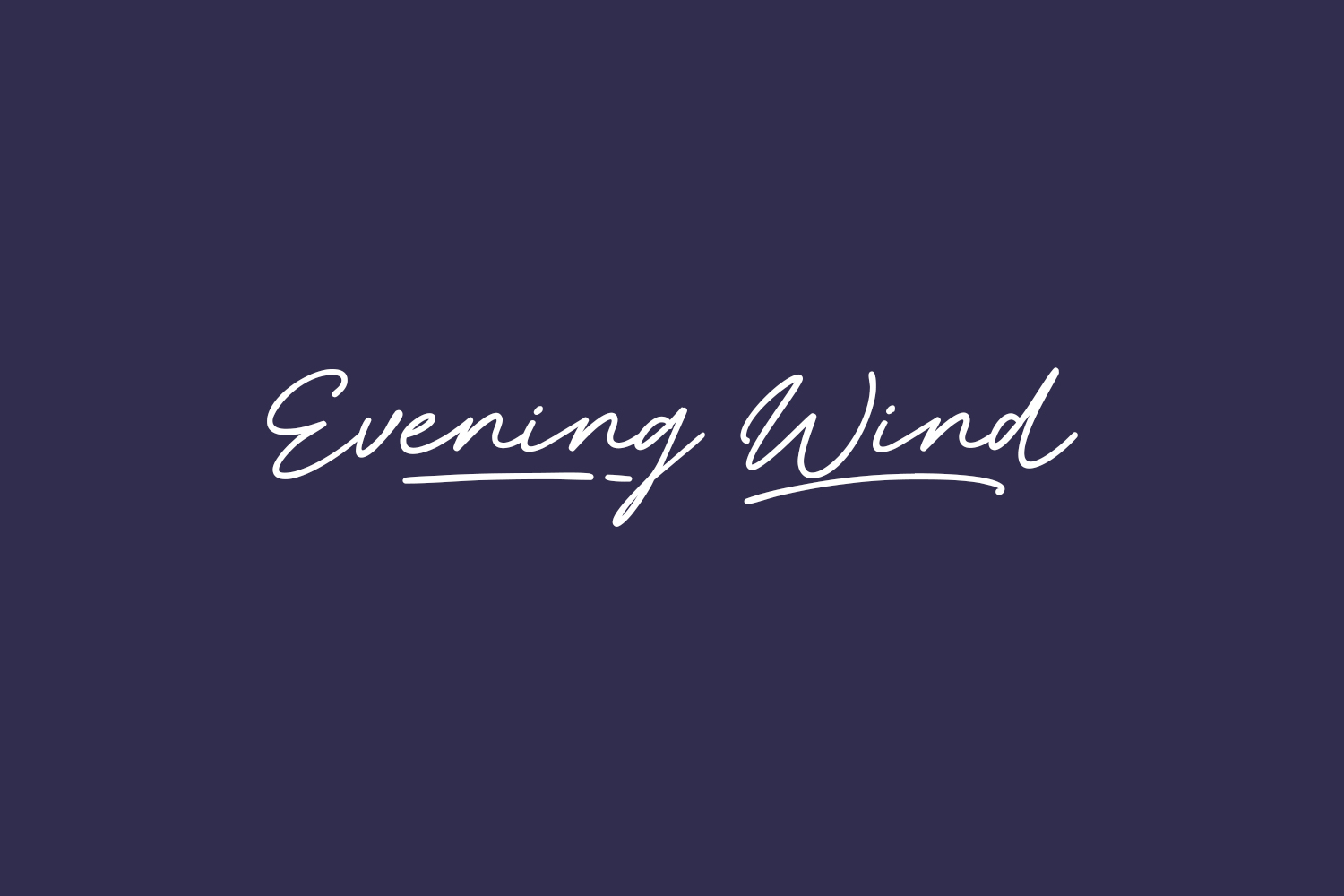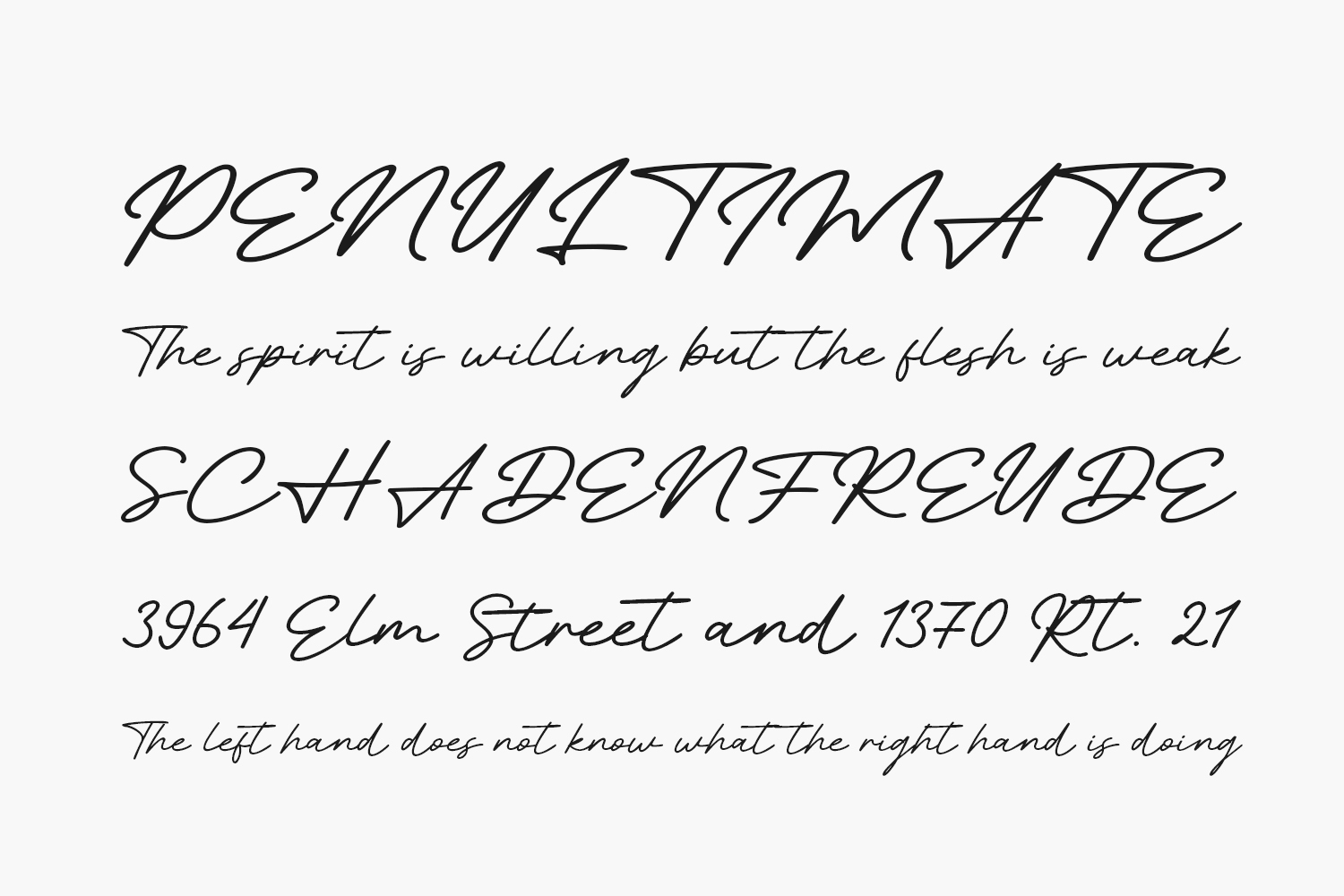
Evening Wind Free Font embodies cleanliness, style, modernity, and elegance in its script. It’s an ideal choice for various applications like posters, logos, magazines, book covers, banners, and more. Acquire this exceptional font to infuse your designs with its charm. Its versatility makes it suitable for an extensive range of projects, enhancing your creative concepts and ensuring their distinctiveness shines through. Evening Wind Free Font is free for personal use only. Please purchase the full version for commercial use.